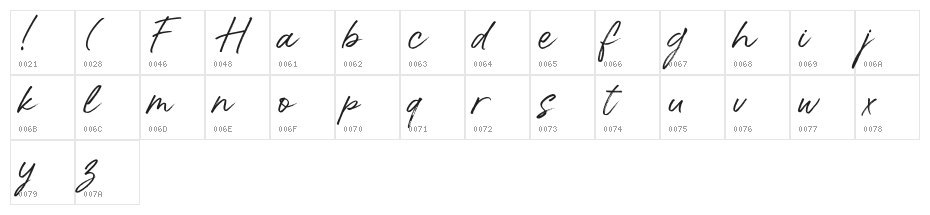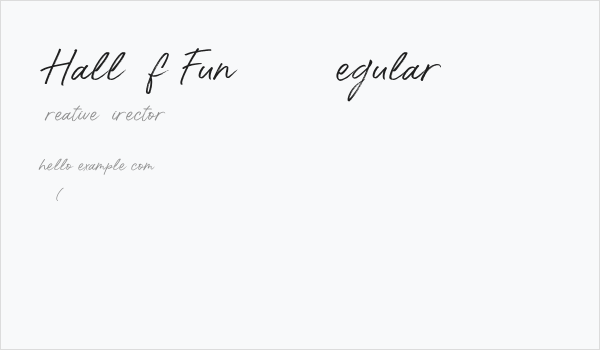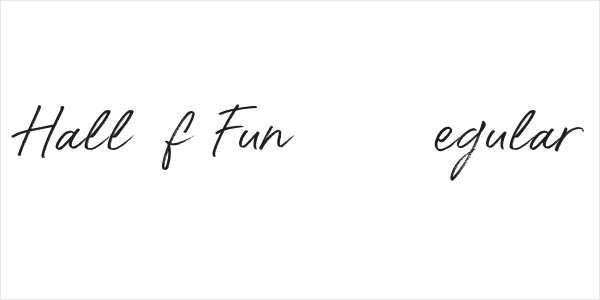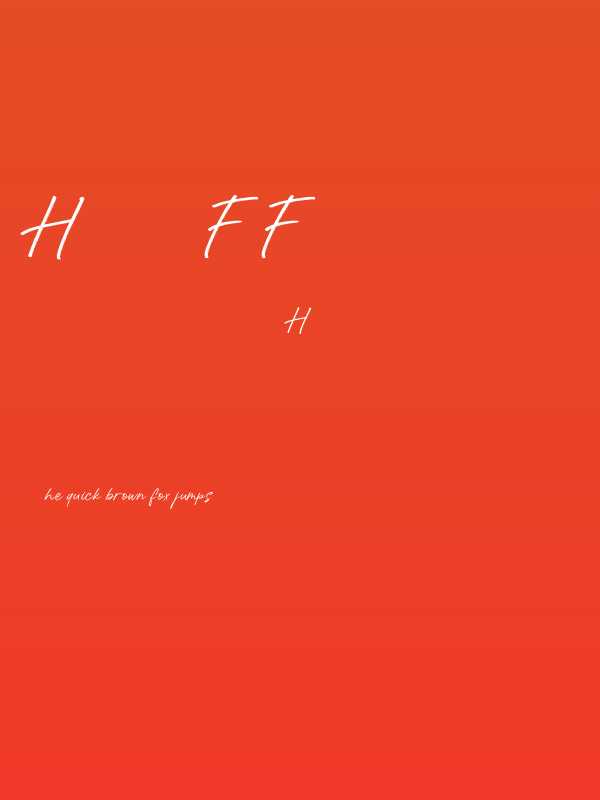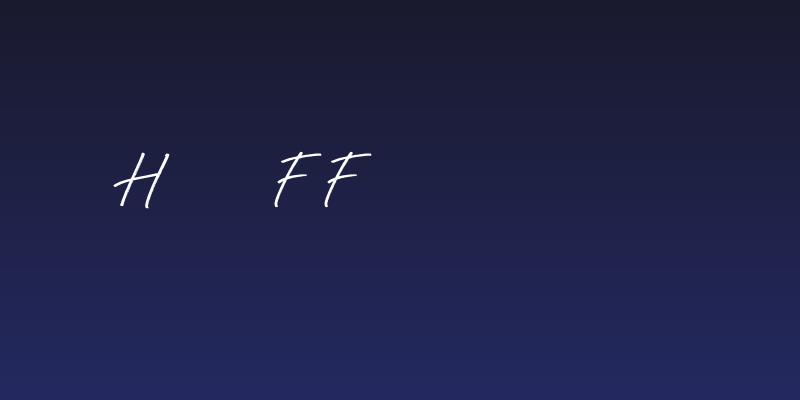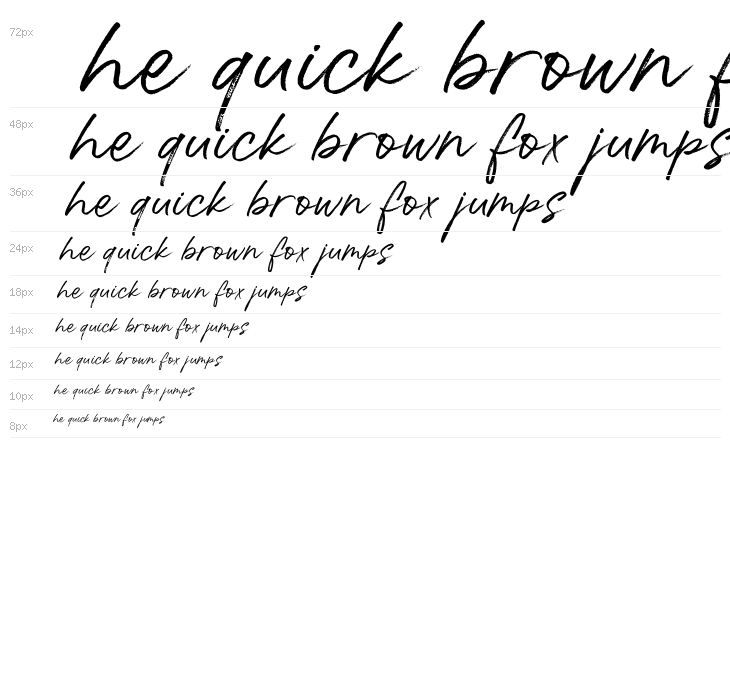
Hall Of Fun DEMO Regular Font
Hall Of Fun DEMO Regular Description
This font features a playful and dynamic handwritten style, characterized by its fluid and natural strokes. The letters have a casual yet elegant appearance, with a slight slant that adds to the overall movement and energy of the text. The uppercase letters are bold and prominent, while the lowercase letters maintain a consistent flow, making it suitable for creative and informal designs. The texture of the strokes gives a slightly rough, textured feel, adding depth and personality to the font. The numerals and special characters are crafted with the same attention to detail, ensuring a cohesive look across all elements.
Use CaseLogos, Headlines, Creative projects
Proposed ProjectsIdeal for greeting cards, invitations, branding projects, and social media graphics.